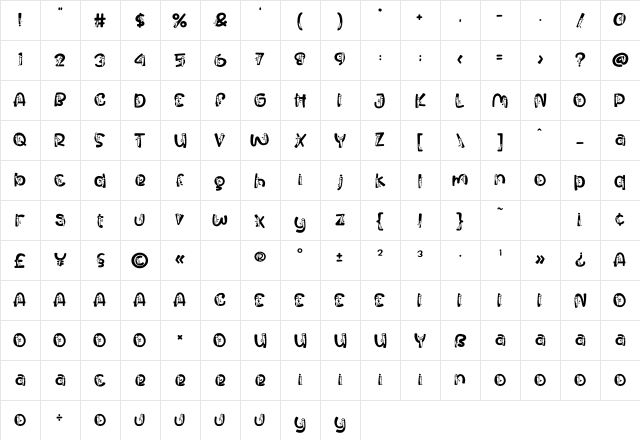
Pastel Palooza Carrot Free Font
Pastel Palooza Carrot
Style: Carrot
Foundry: Putracetol Studio, Karanganyar.
Designer: Putra Novembria Candra Kusuma
Design Context for Pastel Palooza
Pastel Palooza is a composed and adaptable typeface that performs quietly and consistently across a wide range of design contexts.